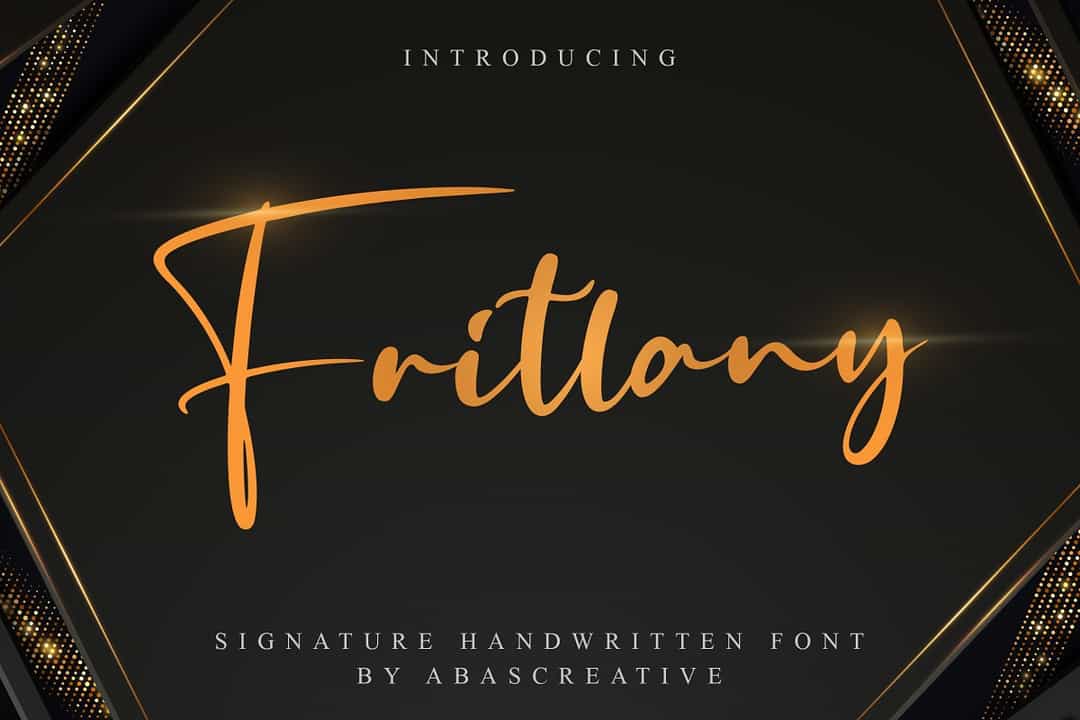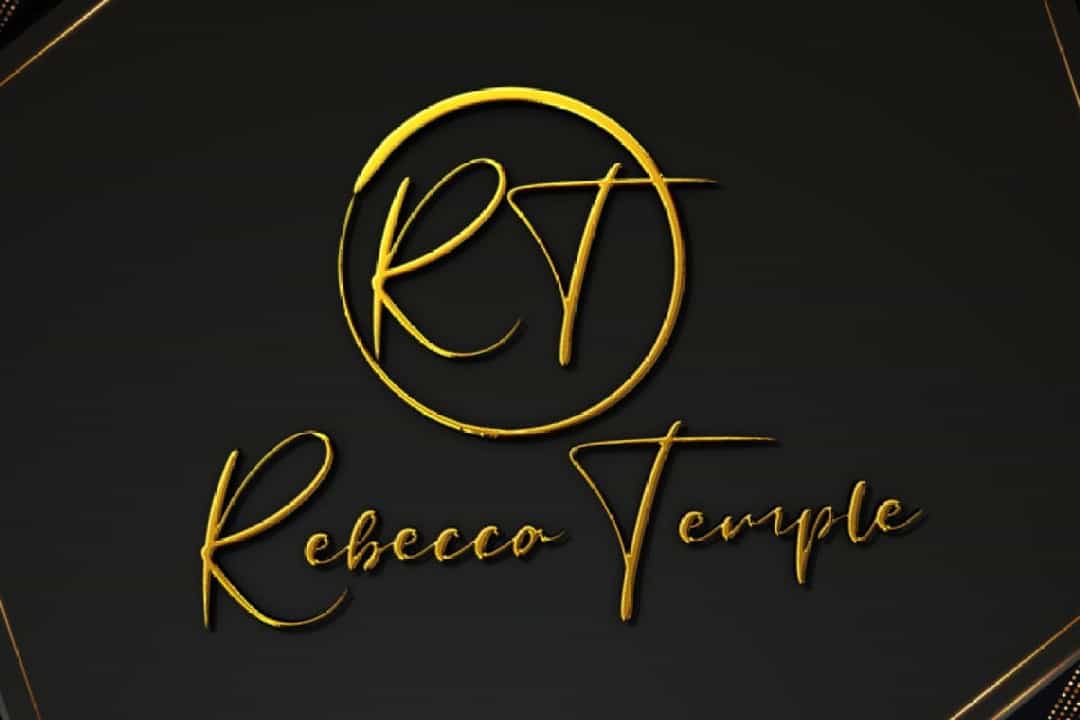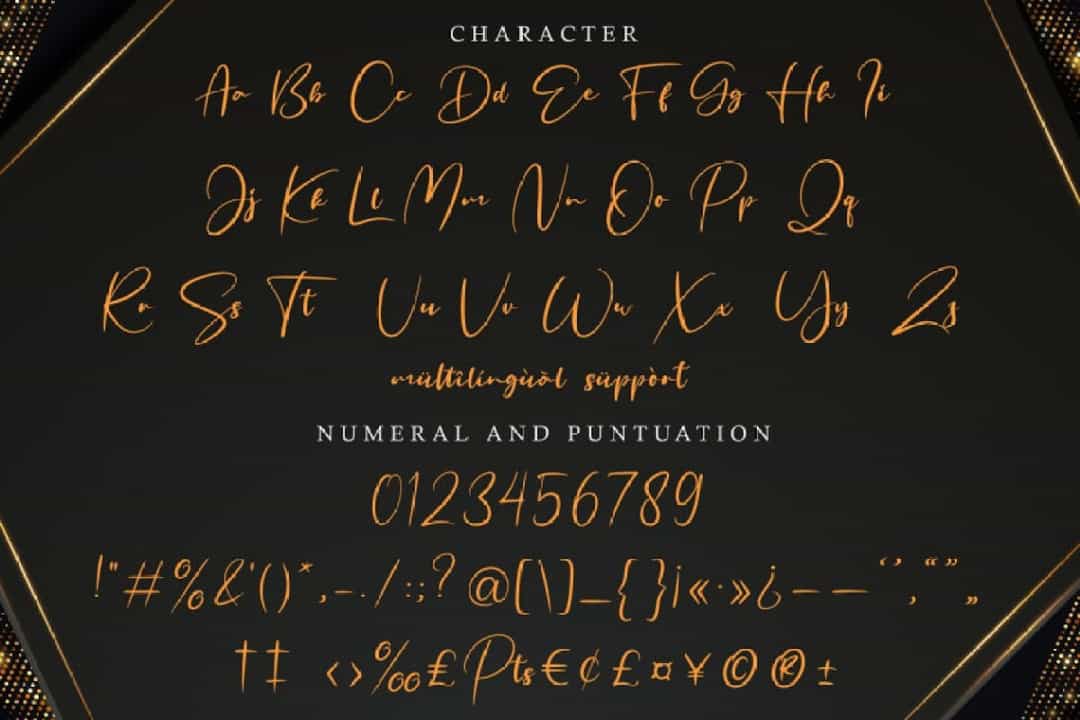
Fritlany can be characterized as a modern handwritten typeface, which has been developed to fully meet your design needs, and each of the characters has been created in such a way that the same sense of writing is achieved in every word.